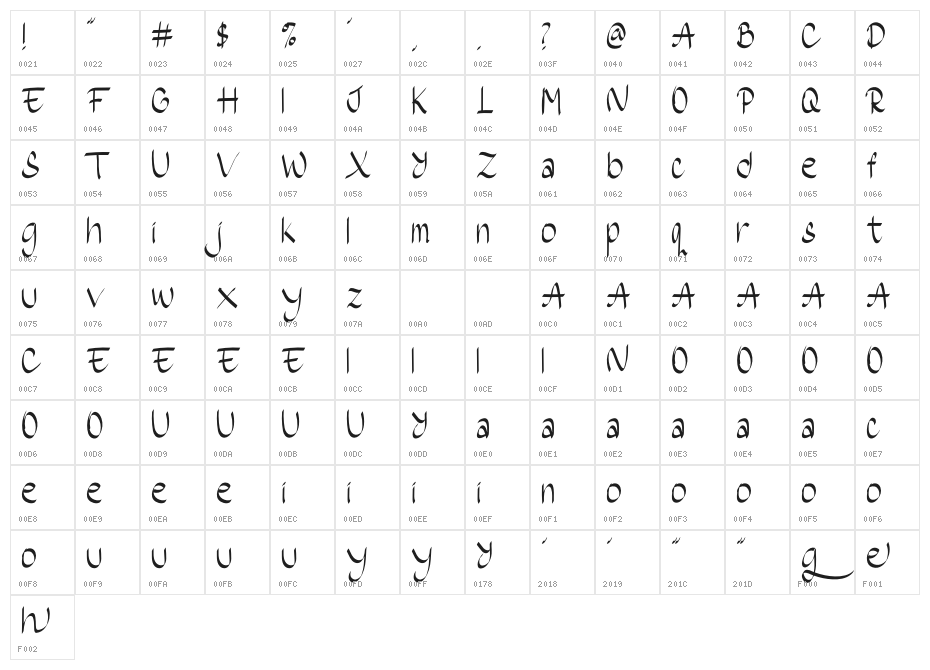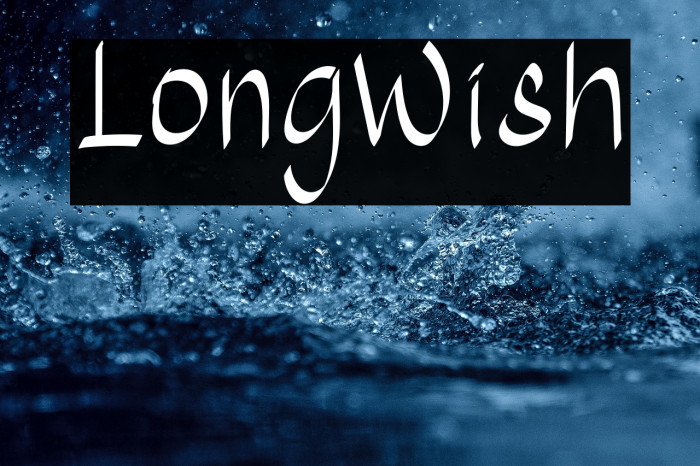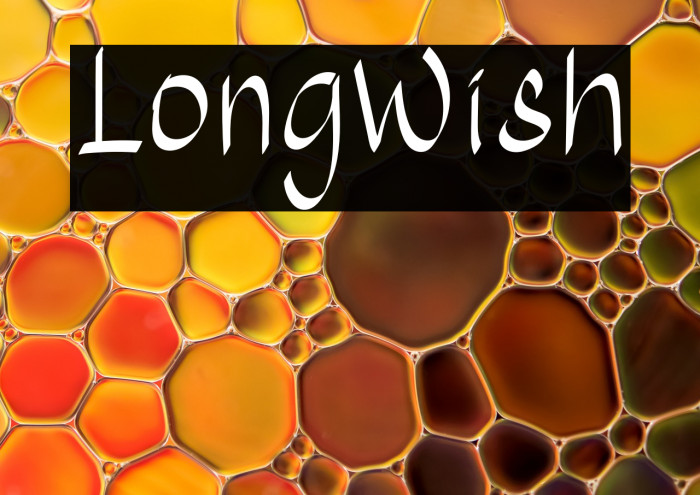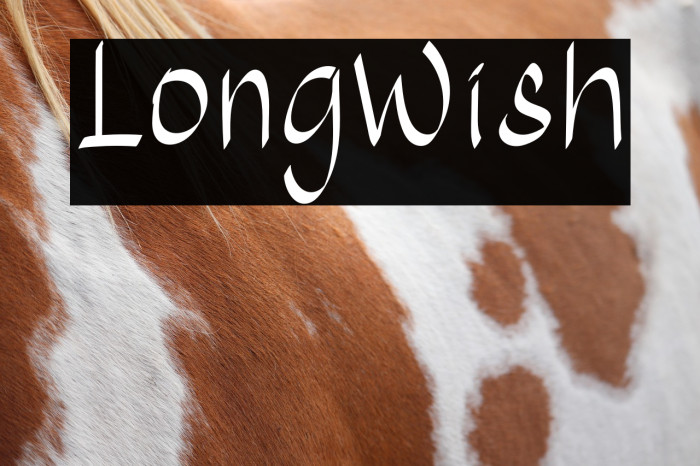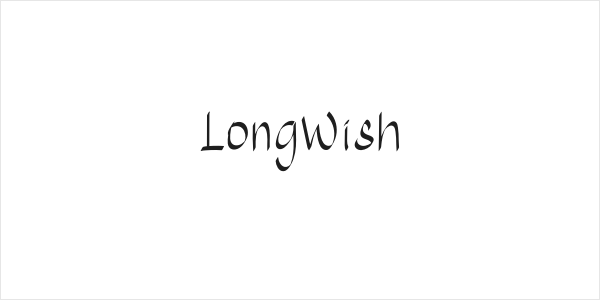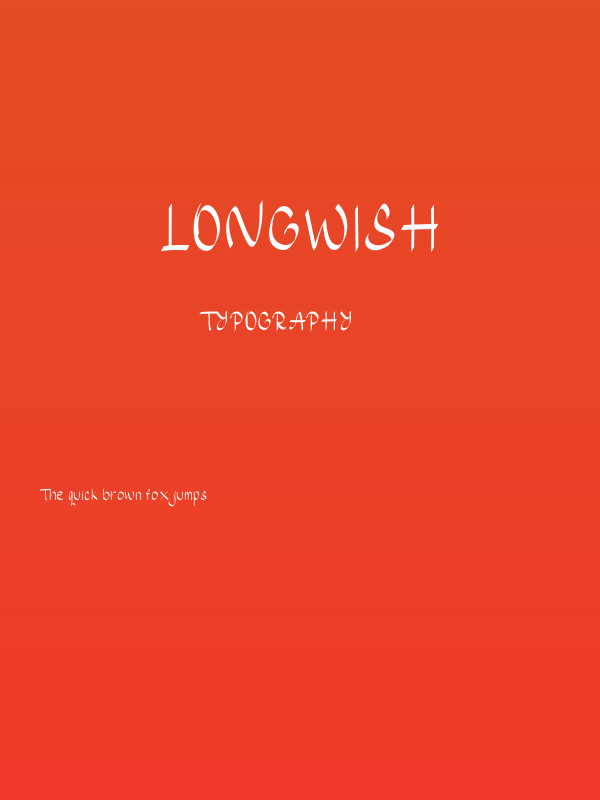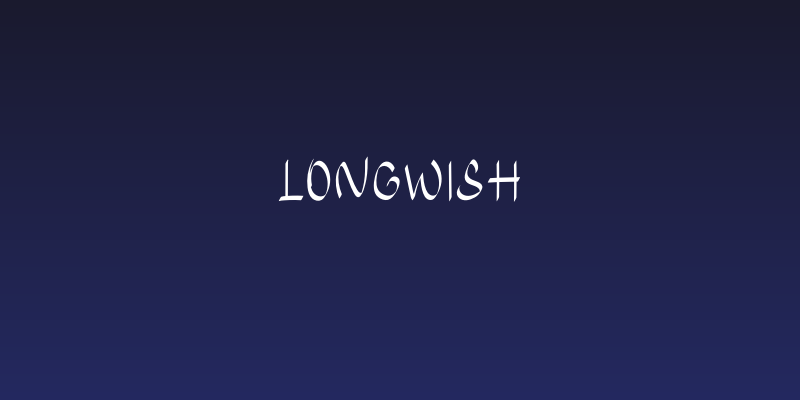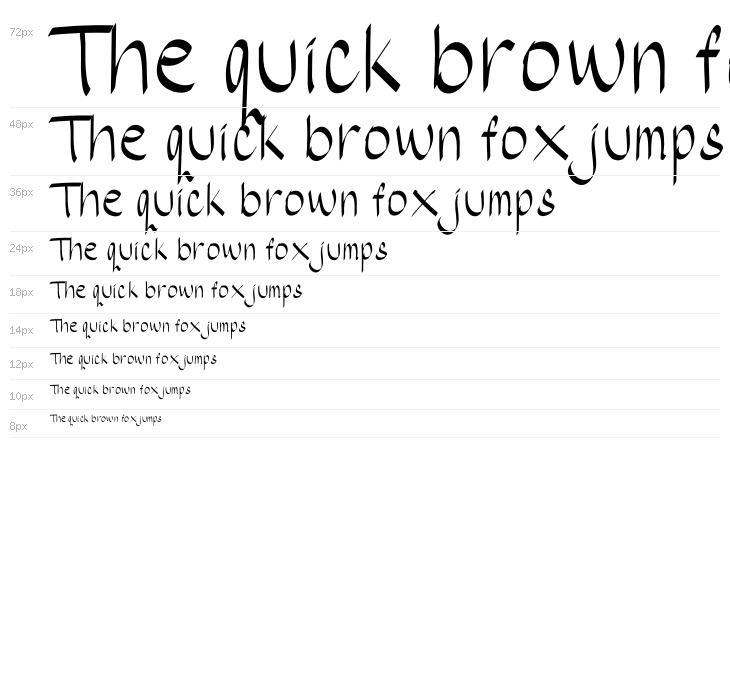
LongWish Font
LongWish Description
This font exhibits a unique and artistic style, characterized by its flowing, calligraphic strokes that convey a sense of elegance and creativity. The uppercase letters are bold and dynamic, with a slight slant that adds movement and energy. The lowercase letters maintain a consistent style, with smooth curves and a harmonious flow. The font's overall appearance is both sophisticated and playful, making it suitable for a variety of design projects. The special characters are crafted with the same attention to detail, ensuring a cohesive look throughout.
| Use Case | Headlines, Artistic projects, Invitations |
| Proposed Projects | Ideal for wedding invitations, greeting cards, artistic posters, and branding materials that require a touch of elegance and creativity. |